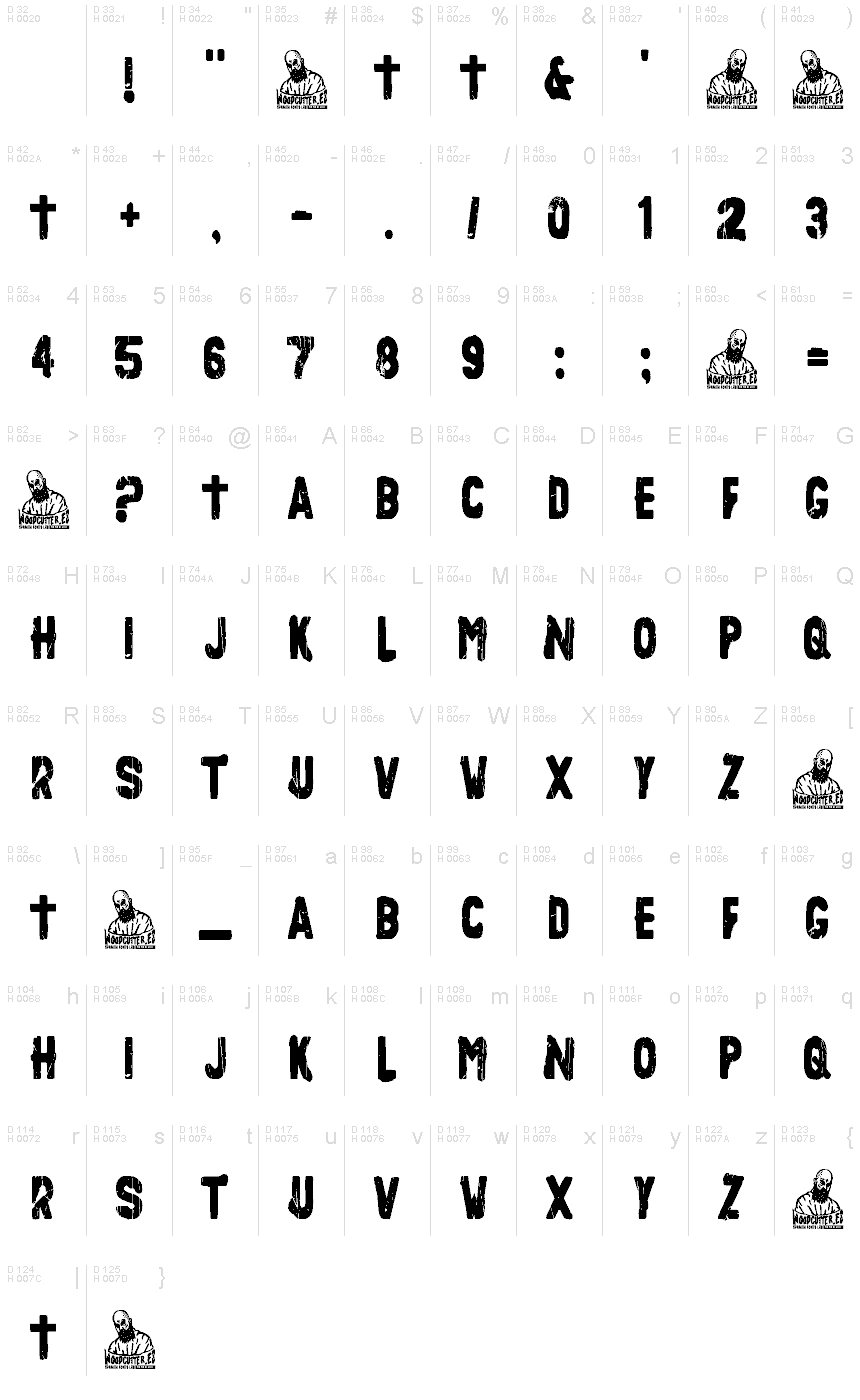
Palestine Border
Palestine Border font by Woodcutter strikes with an overall eroded look combining a grunge, natural texture, and edgy letter shapes. Its bold style takes away from the effects’ subtlety delivering a condensed design with an imposing presence. Indeed, the font holds great potential for making a rugged and rebellious visual statement.
Headlines, posters, logos, signs, books covers and t-shirt designs are but very few examples of where this free display font can be used. It’s perfect for label design related to music/bands or even coffee brands needing some indie vibe typography. Be creative in your own unique applications!